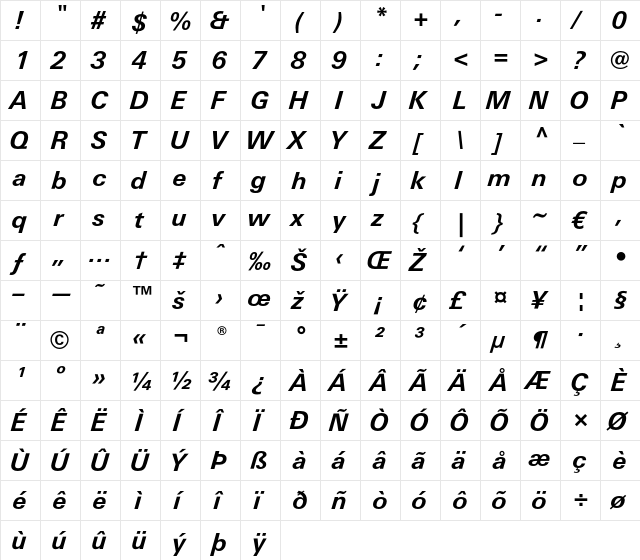
LTUnivers 631 BasicBoldIt Font Preview
LTUnivers 631 BasicBoldIt
LTUnivers 631 BasicBoldIt Font Details
Design Context for LTUnivers Typeface
LTUnivers takes a measured approach to typography — its balanced proportions and neutral character make it a reliable workhorse for both digital and print work. Its bold stroke weight gives it real presence on the page.